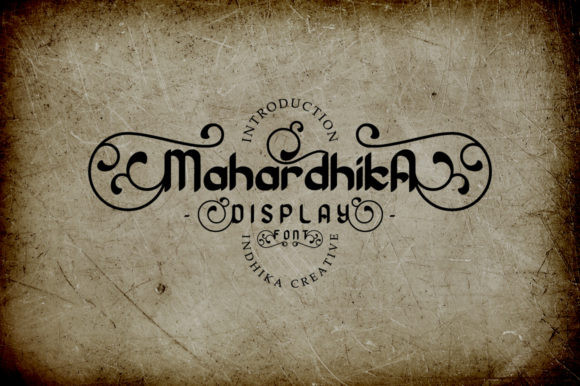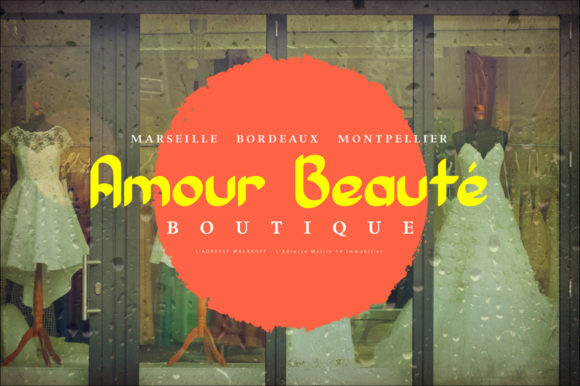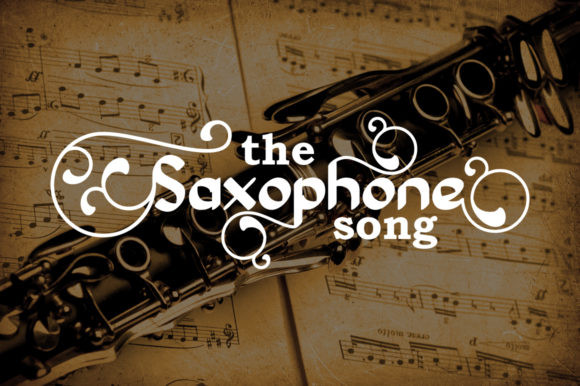
Mahardhika Font
Mahardhika is a decorative font with a polished touch and lovely swashes. It maintains its classy calligraphic influences while feeling contemporary and fresh. Fall in love with it and bring your projects to the highest levels!